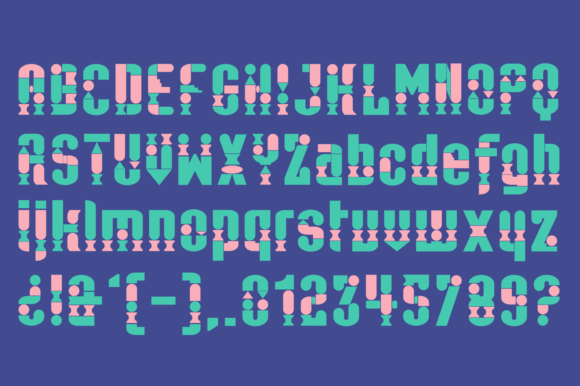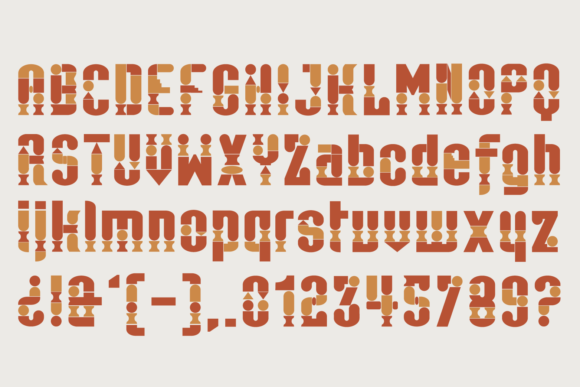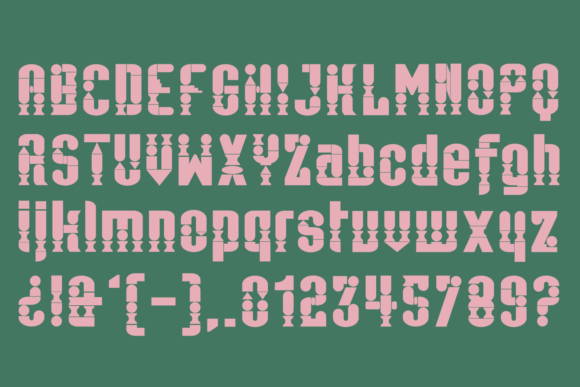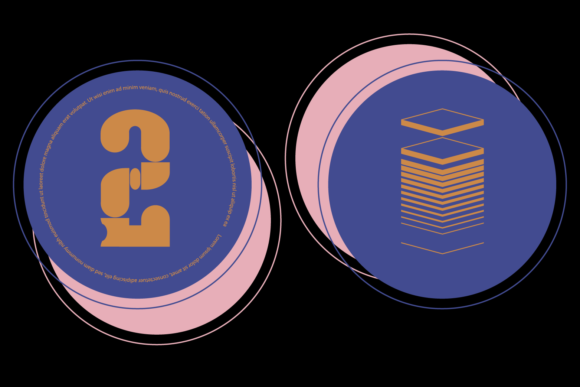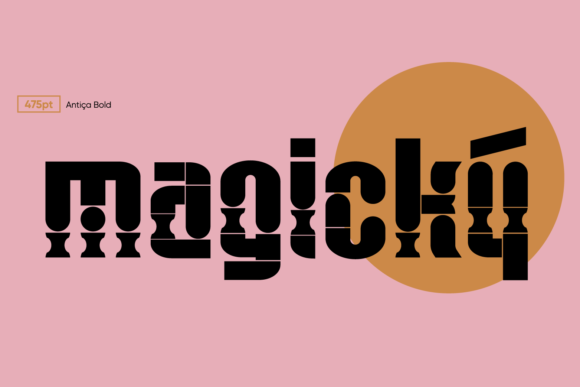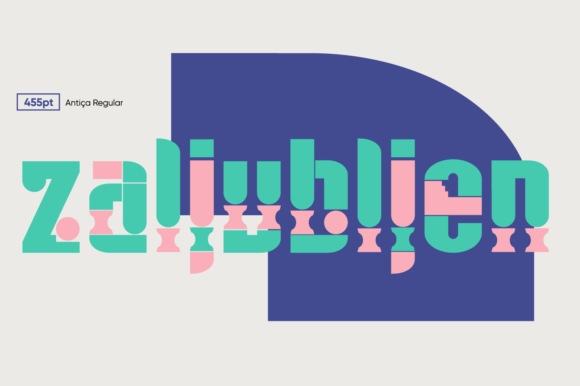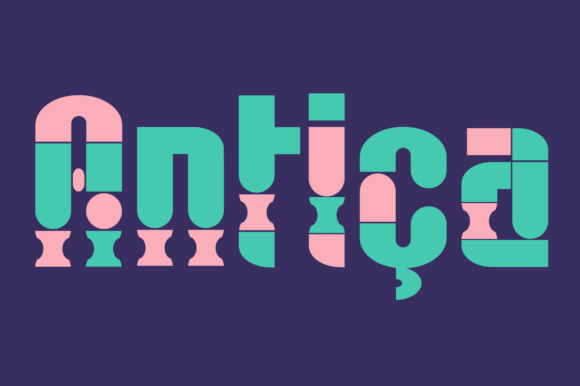
Introducing Antica Font: A Playful, Colorful, and Fun Geometric Font
Are you tired of using the same old fonts for your designs? Look no further than Antica Font, a fresh and exciting addition to the world of typography. This geometric font is made up of simple shapes and lines, giving it a modern and sleek look that’s perfect for a variety of design projects. In this article, we’ll take a closer look at Antica Font, its features, and how you can use it to take your designs to the next level.
What is Antica Font?
Antica Font is a geometric font that consists of three variables: Regular, Alternative, and Bold. This versatile font is perfect for designers who want to add a touch of playfulness and whimsy to their work. With its clean lines and simple shapes, Antica Font is ideal for a wide range of design projects, from logos and branding to invitations and crafts.
Key Features of Antica Font
- Geometric forms: Antica Font is made up of basic geometric shapes, giving it a modern and sleek look.
- Three variables: The font includes three variables: Regular, Alternative, and Bold, allowing you to mix and match to create unique and interesting combinations.
How to Use Antica Font
Antica Font is a versatile font that can be used in a variety of design projects. Here are a few ideas to get you started:
- Logos and branding: Use Antica Font to create a modern and sleek logo or brand identity.
- Invitations and events: Add a touch of playfulness and whimsy to your invitations and event materials with Antica Font.
- Crafts: Antica Font is perfect for crafters who want to add a personal touch to their projects. Use it to create custom signs, cards, and more.
Tips and Tricks for Using Antica Font
Here are a few tips and tricks to help you get the most out of Antica Font:
- Experiment with different variables: Don’t be afraid to mix and match the different variables of Antica Font to create unique and interesting combinations.
- Play with color: Antica Font is a color font, so don’t be afraid to experiment with different colors and combinations.
- Use it in combination with other fonts: Antica Font pairs well with a variety of other fonts, so don’t be afraid to use it in combination with other fonts to create a unique look.